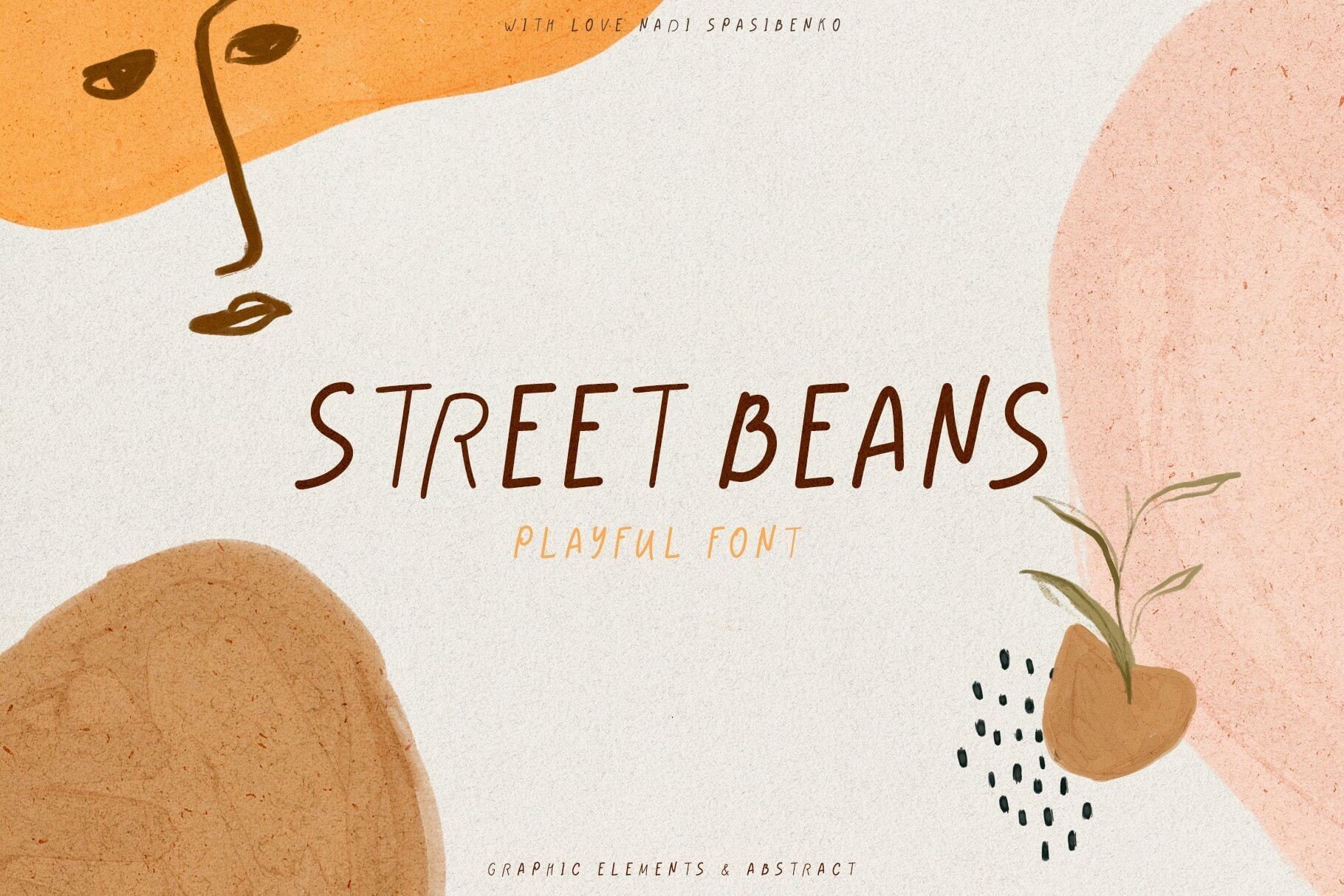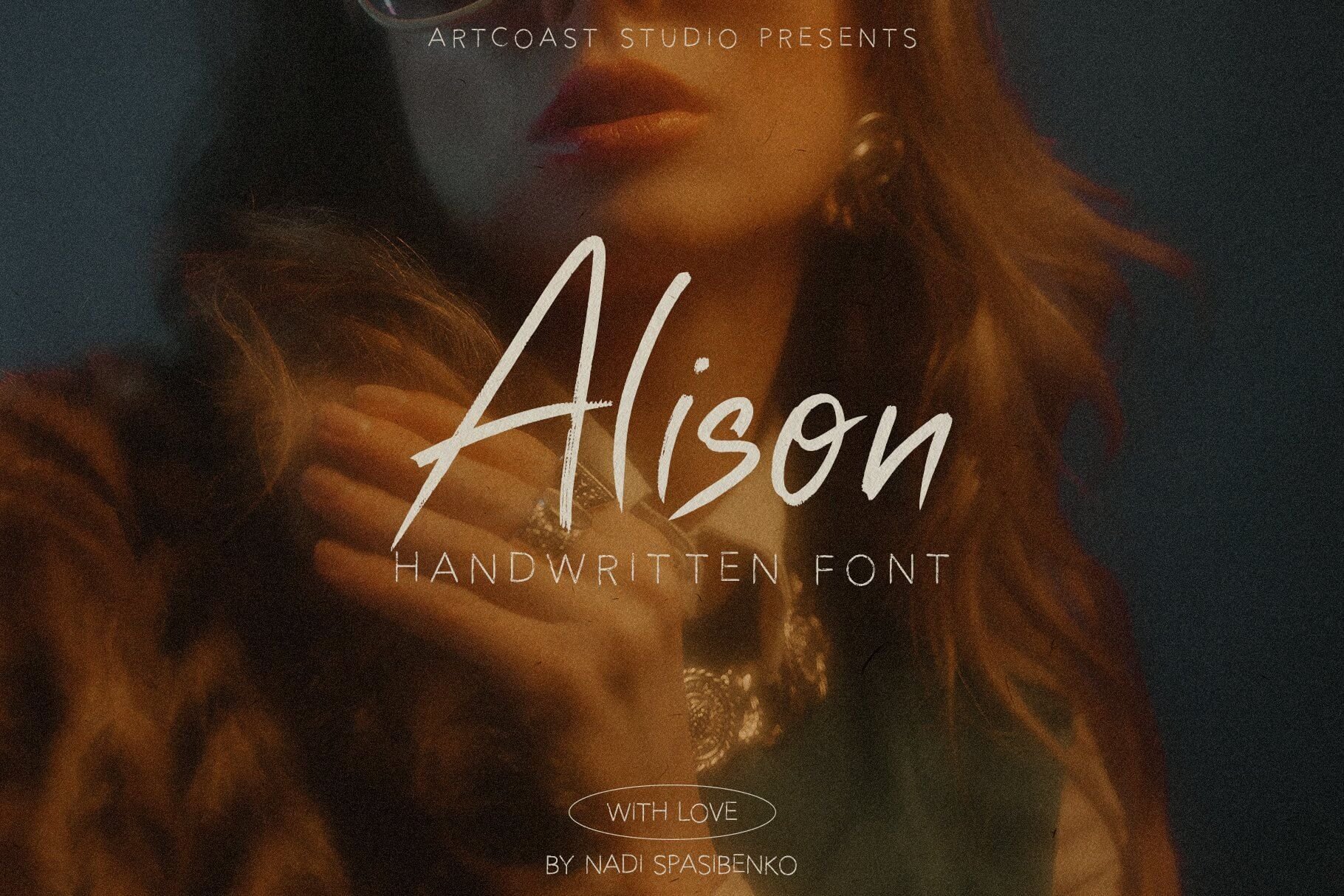
Cute Font Bundle: Elegant Handwritten Fonts
Discover the Cute Font Bundle and unlock the potential of handwritten fonts! Get creative with these elegant yet stylish ten fonts, perfect for making a statement with your greeting cards, wedding invitations, menus or logos. Whether you’re looking for a trendy font for food design or one that adds style to your signature projects, this bundle has something unique you're sure to love.